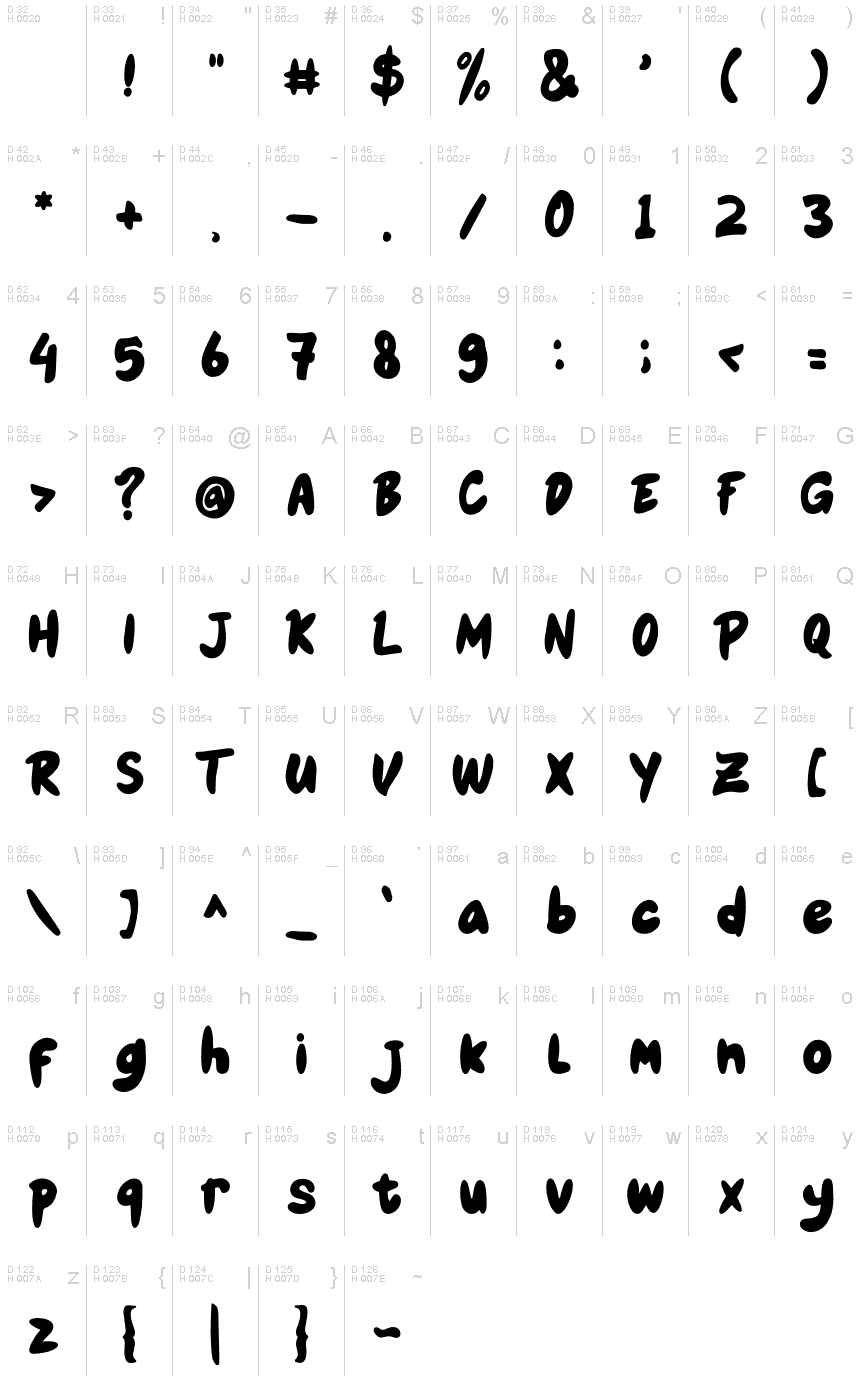
Honey Bear Bold
Honey Bear Bold is a playful cartoon display font designed by Yudistira. Its bold weight and unique character make it perfect for projects requiring a fun and quirky touch, such as children's books, comics, posters, and apparel.